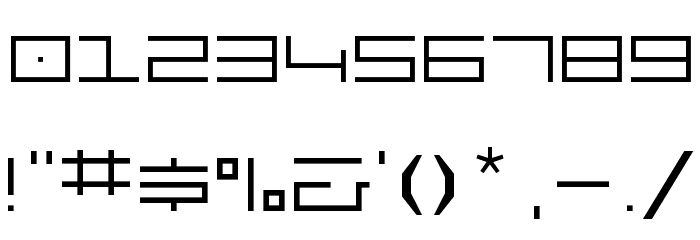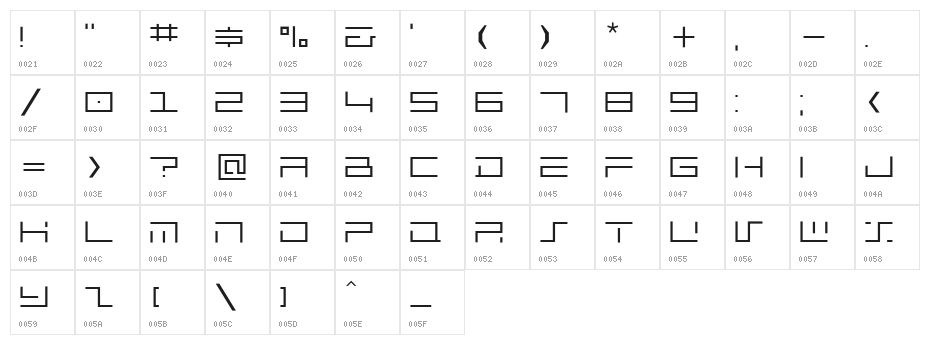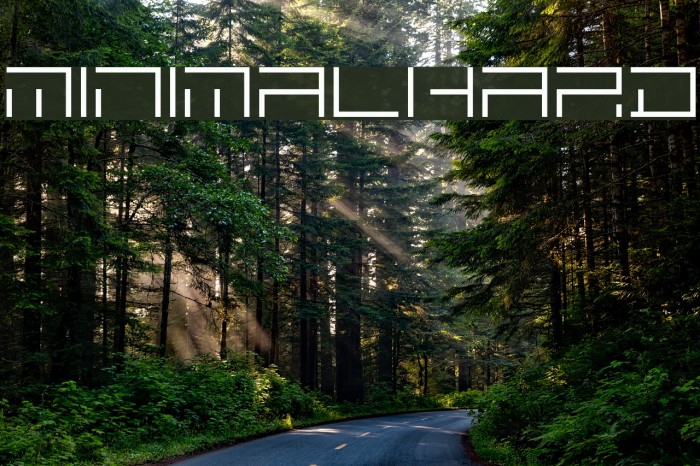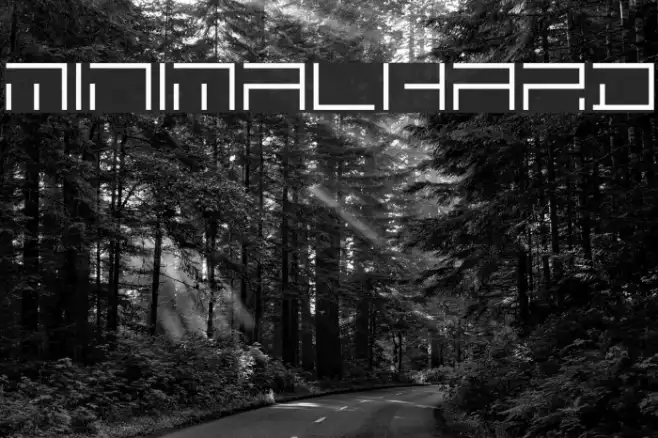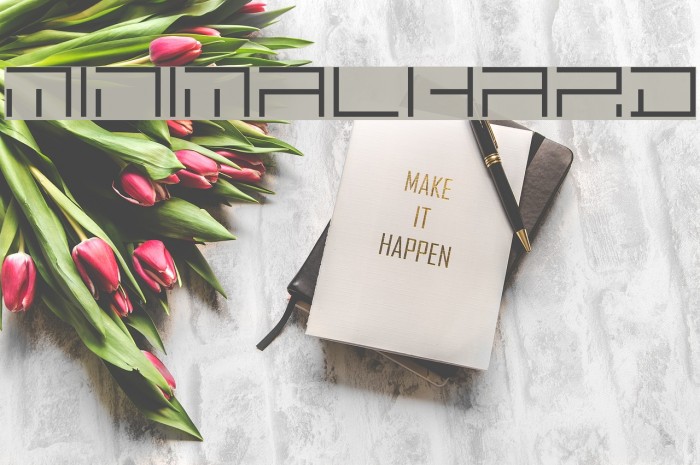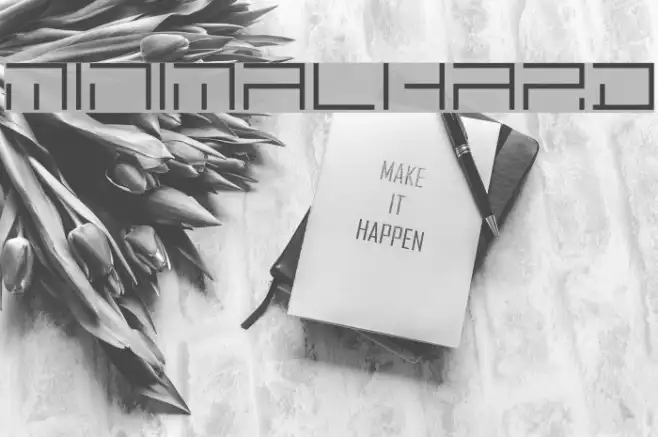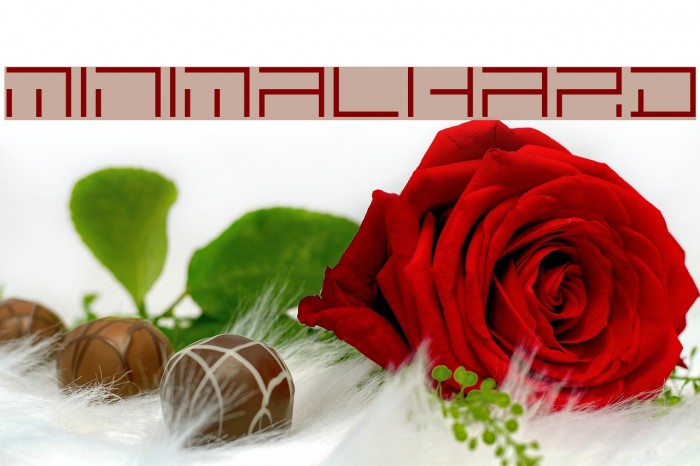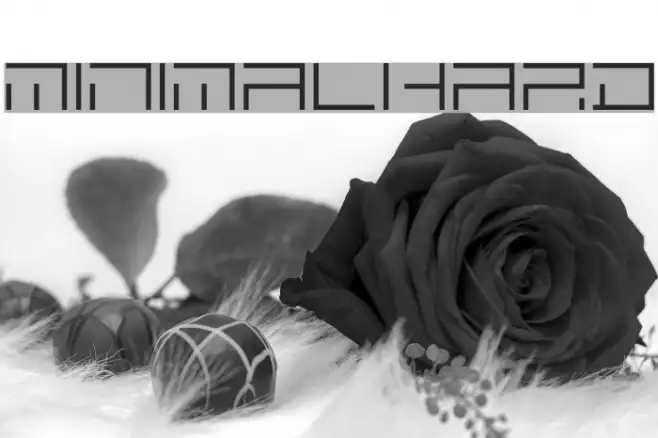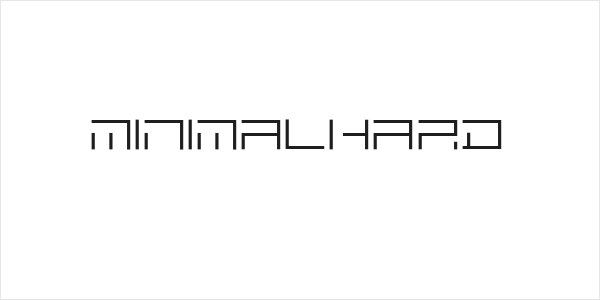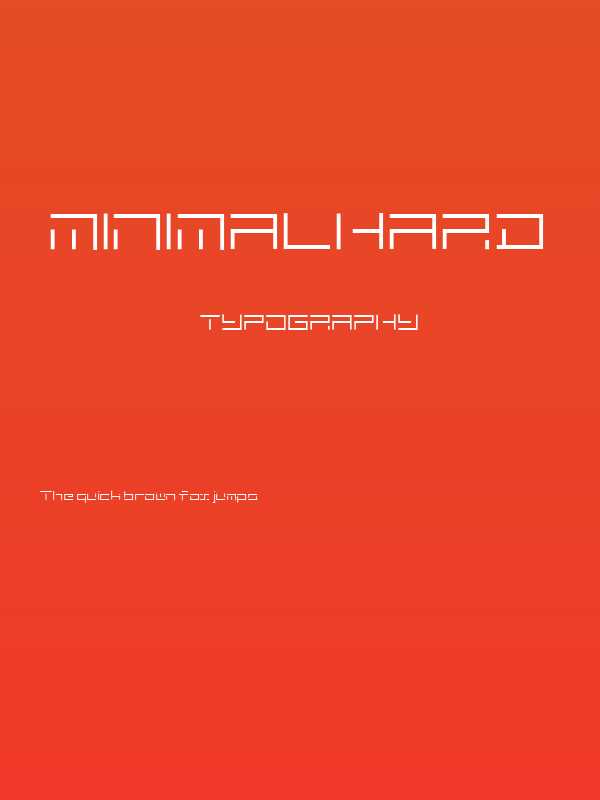
MINIMALHARD Font
MINIMALHARD Description
This font features a minimalist and geometric design, characterized by its clean lines and angular shapes. Each character is constructed with a consistent stroke width, giving it a uniform appearance. The uppercase and lowercase letters maintain a similar height, enhancing the font's modern and structured look. The numerals and special characters follow the same design principles, ensuring cohesion across all elements. Its simplicity and clarity make it highly legible, even at smaller sizes, while the geometric style adds a contemporary edge.
| Use Case | Logos, Headlines, Digital Interfaces |
| Proposed Projects | Ideal for tech branding, modern web design, digital interfaces, and minimalist posters. |